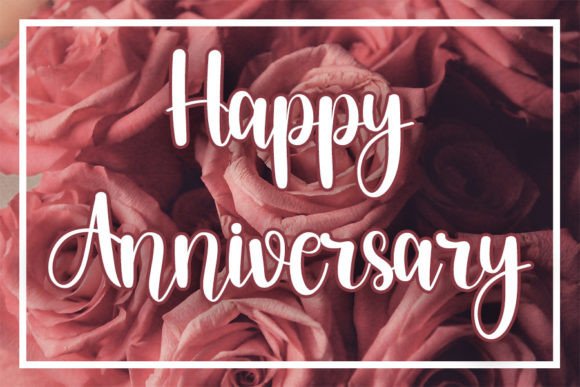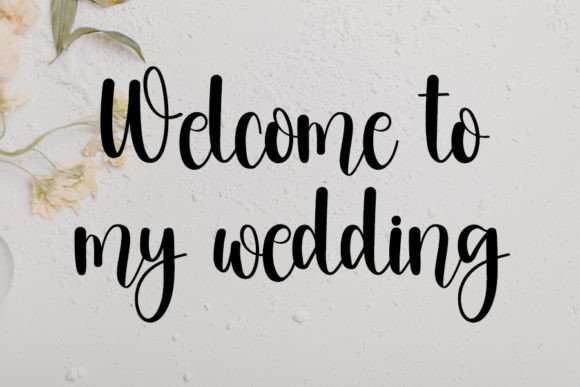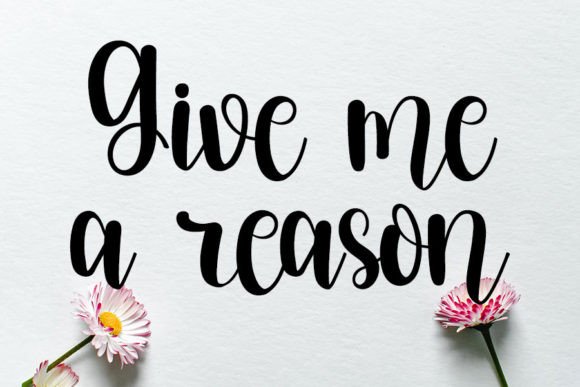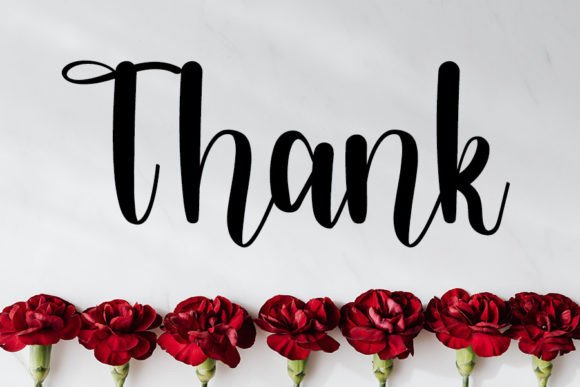
Wedding Store Font
About Wedding Store Font
Wedding Store Font is a stunning handwritten script that combines elegance, warmth, and contemporary charm. Inspired by timeless classic calligraphy, this typeface is specially crafted to elevate designs that need a personal and romantic touch. Its fluid strokes and graceful curves make it ideal for wedding themes, branding, and any design that demands a handwritten aesthetic with a professional polish.
Where Elegance Meets Modern Aesthetic
Wedding Store Font captures the essence of classic calligraphy and blends it beautifully with a modern style. Each character is thoughtfully designed with soft curves, varied baselines, and natural movement—perfectly simulating the flow of real handwriting. The font adds a sense of luxury and personalization, ideal for both formal and creative projects.
It doesn’t just look beautiful—it communicates emotion. Whether it’s romance, celebration, or sophistication, this font conveys your message with beauty and clarity.
Ideal Uses for Wedding Store Font
Because of its stylish yet readable form, Wedding Store Font is incredibly versatile. Here are some ways it can enhance your designs:
• Wedding Invitations & Save the Date Cards: Give your event a luxurious handwritten flair.
• Branding & Logo Design: Especially suitable for boutique, floral, or event-related businesses.
• Packaging & Product Labels: Adds a premium handwritten look to your products.
• Greeting Cards & Quotes: Elegant enough for inspiration, romantic enough for love notes.
• Social Media Graphics: Perfect for bridal announcements, fashion content, or lifestyle visuals.
Features That Designers Will Love
• Timeless Look: The calligraphic influences bring class and charm.
• Highly Legible: The characters are well-balanced and easy to read even at smaller sizes.
• Versatile Usage: Great for both print and digital applications.
Bring Magic to Your Brand or Event
If you’re working on a wedding design, lifestyle blog, or luxury branding project, Wedding Store Font can be your secret weapon. It creates a strong visual identity that feels upscale yet personal. This makes it a perfect fit for designers who want to deliver a high-end feel without sacrificing warmth or originality.
Wedding Store Font is more than just a script—it’s an emotion in written form. Whether you’re designing for an elegant occasion or branding a heartfelt message, this font will help your visuals speak volumes. Bring your words to life with the charm, flow, and romance of this timeless handwritten font.